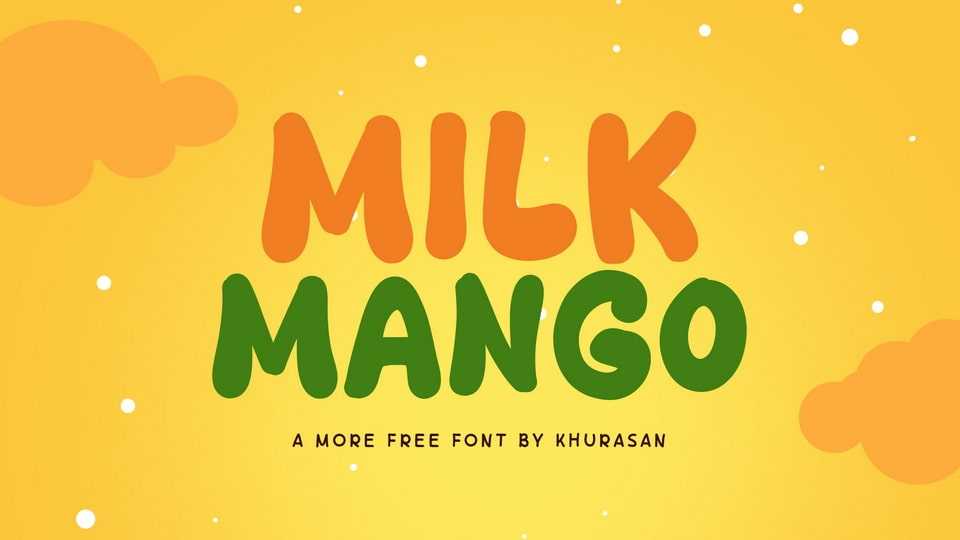
Download Milk Mango font, a playful and cute hand-drawn typeface that sprinkles joy on every letter. Milk Mango font is perfect for projects that crave a lighthearted and delightful vibe